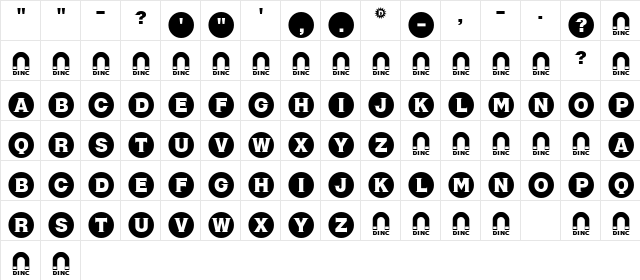
Cupcake Regular
Design Context for Cupcake Typeface
Cupcake offers clean, dependable letterforms without strong stylistic allegiance, making it a practical choice for designers who need flexibility.